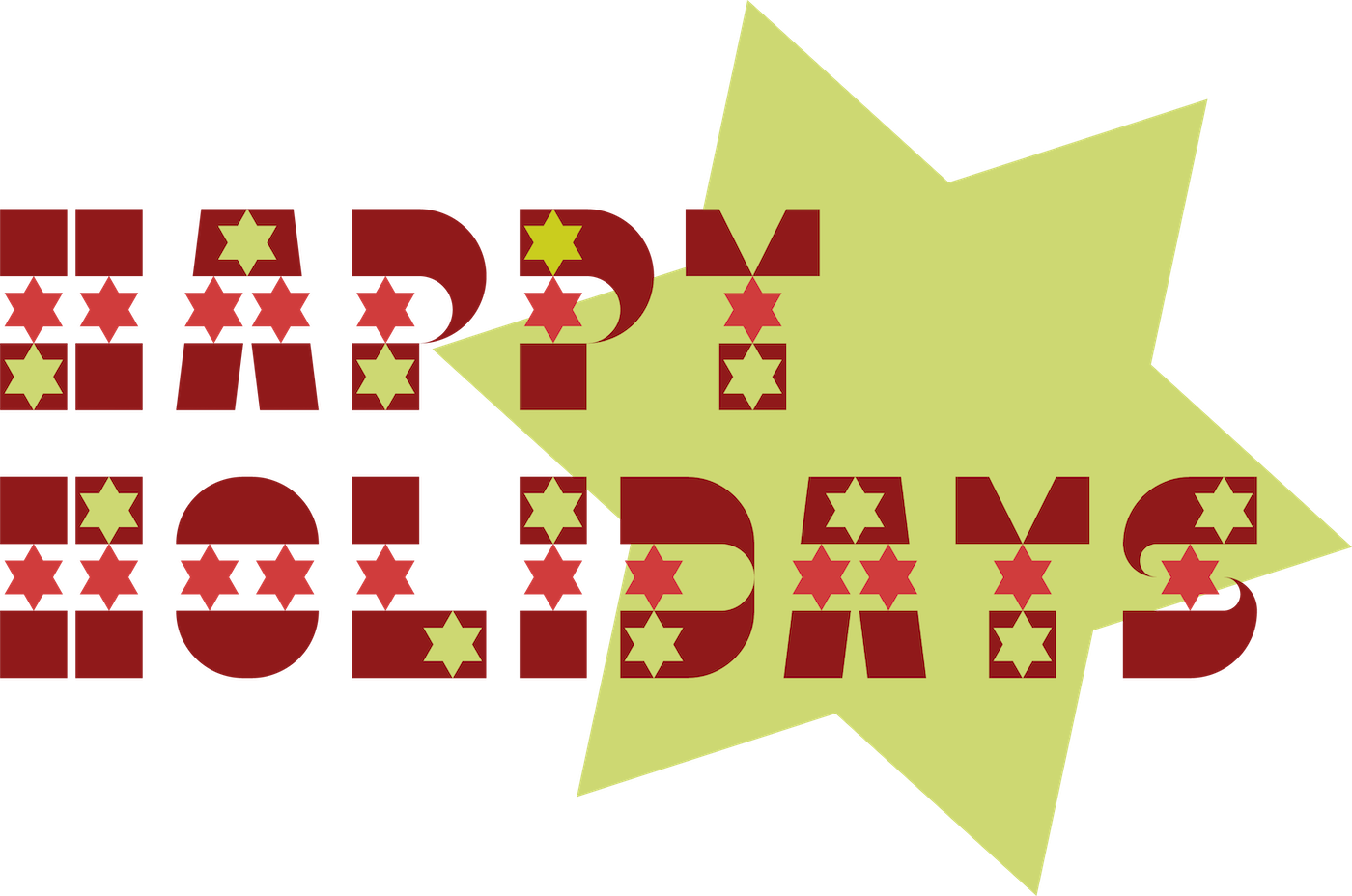
Pretty nice font. Missed opportunity to use green for the star shaped holes in the sample as green is a traditional christmas color, as well as red.
I forgot to add this, but was this inspired by plotline, which kind of has a similar structure to this font?
A playful Christmas font with stars. Nice. 10/10
Lovely little font for the holidays! The dingbats are also promising.
Thanks, @BWM! It looks like green to me... Yes it definitely shares characteristics with plotline.
Another excellent design!
This is just a good font.
What a pretty pair of western gems, compañero! Congrats on the TP! (#1)
nice!
very cool font